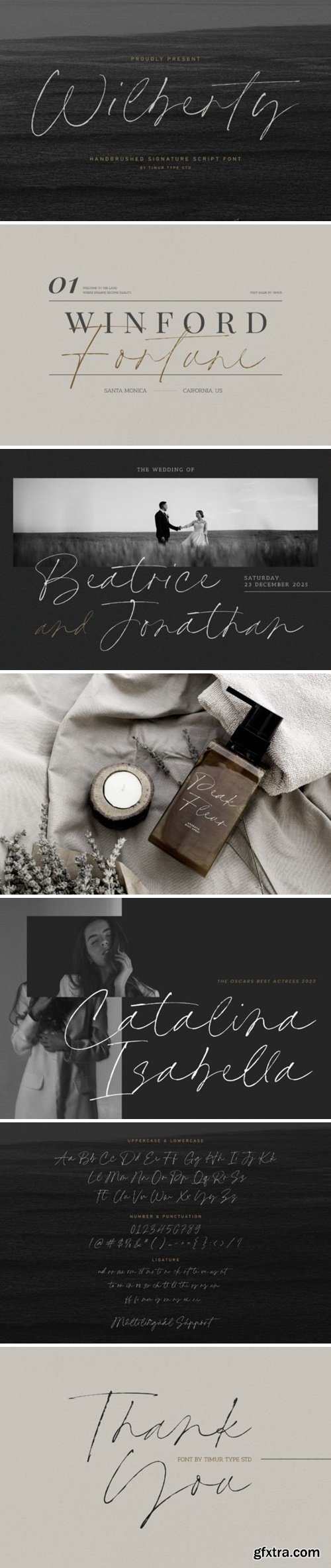
威尔伯蒂字体
Wilberty is a stylish and incredibly elegant script font. It looks stunning on wedding invitations, thank you cards, quotes, greeting cards, logos, business cards and every other design which needs a handwritten touch.